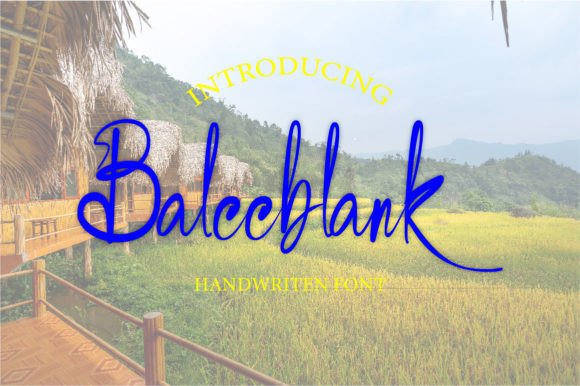
Behold, the Baleeblank Font family - a breathtaking script font collection that will infuse your designs with grace and charm. Created by the talented gunaloe12, Baleeblank is meticulously crafted to bring a touch of sophistication and elegance to every project you undertake.
This versatile font family is perfect for those seeking a touch of personality and creativity in their designs. Whether you're working on wedding invitations, social media posts, cards, web designs, flyers, or any other project that calls for a unique and eye-catching touch, Baleeblank has got you covered.
With its graceful curves and delicate serifs, Baleeblank adds an air of romance and femininity to any project. Its smooth lines and elegant flow create a sense of harmony and balance that will captivate your audience. Imagine the impact of your wedding invitations adorned with the beautiful characters of Baleeblank, or the allure of your social media posts with its captivating letters.
But Baleeblank is more than just a pretty face. It's a versatile performer that can effortlessly adapt to a wide range of design styles. Its timeless charm blends seamlessly with modern aesthetics, making it a perfect choice for contemporary projects. From classic and traditional to bold and experimental, Baleeblank is your go-to font for creating designs that stand out.
So, if you're ready to elevate your designs to new heights, embrace the beauty of the Baleeblank Font family. Let its sweeping strokes and alluring curves become your creative companions, guiding you towards design excellence. Experience the transformative power of Baleeblank and see your projects come to life with a touch of elegance and sophistication.